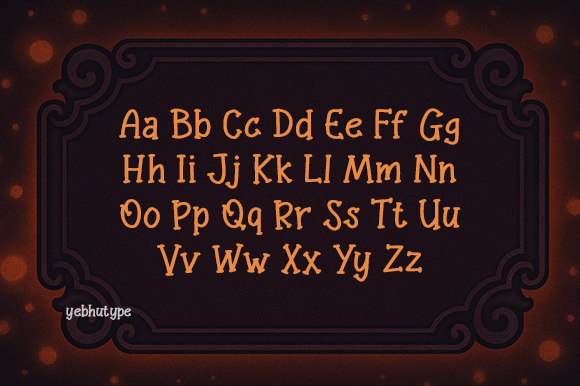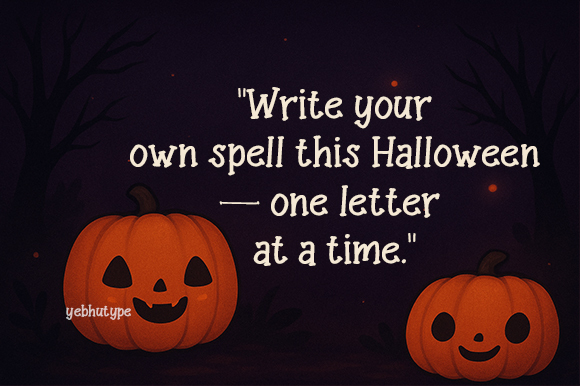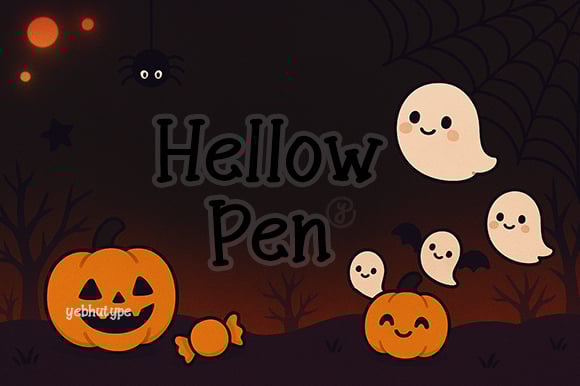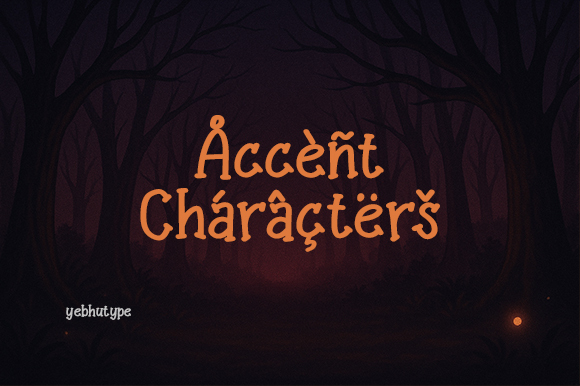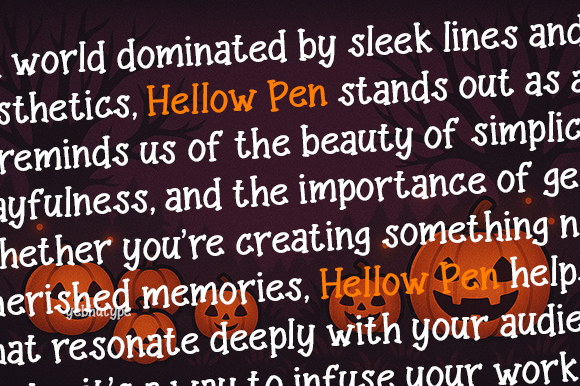
Hellow Pen Font: The Friendly Script That Brings Warmth and Personality to Every Letter
Introducing Hellow Pen , a delightful handwritten script font that captures the essence of warmth, friendliness, and natural charm. Lovingly crafted to evoke feelings of approachability and connection, Hellow Pen is more than just a font—it’s a celebration of all things personal, inviting, and heartfelt. With its soft curves, flowing strokes, and handcrafted details, this typeface brings a touch of authenticity and personality to every word. Whether you’re designing for branding, crafting social media graphics, or adding a personal touch to your creative projects, Hellow Pen effortlessly conveys charm and sincerity.
The Essence of Hellow Pen Font
Hellow Pen Font is inspired by the simple joys in life—handwritten notes passed between friends, the spontaneity of childhood scribbles, and the warmth of genuine communication. Its design embodies a sense of natural ease and carefree fun, making it perfect for designs that want to feel approachable, friendly, and full of heart. Like receiving a handwritten letter from a loved one, Hellow Pen leaves a lasting impression of warmth and delight.
Key Features
• Natural Flow : Each character in Hellow Pen is designed with smooth, flowing strokes that mimic the organic movement of handwriting. This gives the font a lively, authentic feel that feels both modern and timeless.
• Playful Yet Professional : While Hellow Pen has a playful energy, it maintains a level of sophistication that makes it suitable for both casual and professional use. Its balanced proportions ensure readability without sacrificing personality.
• Handcrafted Details : Every glyph is meticulously crafted with slight irregularities to give it an organic, human touch. These subtle imperfections ensure your text feels alive and brimming with personality, just like a genuine handwritten note.
• Versatile Use Cases : From children’s books to branding, greeting cards to social media graphics, Hellow Pen adapts seamlessly to any project that calls for warmth and whimsy.
• Modern Yet Nostalgic : While Hellow Pen has a contemporary edge, it also carries whispers of nostalgia. It’s reminiscent of chalkboard doodles, storybook illustrations, and lazy afternoons spent daydreaming.
Mood & Personality
Hellow Pen Font is the typographic embodiment of happiness and connection. Imagine sitting down to write a heartfelt letter to a friend, or flipping through the pages of a cherished journal where every entry feels personal. That’s the energy Hellow Pen brings to your designs. It’s playful without being overwhelming, warm without being cloying, and modern without losing its nostalgic charm.
Ideal Use Cases
• Children’s Books & Storytelling : Bring stories to life with Hellow Pen’s cheerful and inviting style. Perfect for titles, chapter headers, or dialogue bubbles, it creates an immersive reading experience that captivates young readers (and the young at heart).
• Branding & Logos : Add a dash of personality to your brand with Hellow Pen. Whether you’re designing logos for small businesses, cafes, or lifestyle brands, this font adds a touch of authenticity and warmth that resonates with audiences.
• Greeting Cards & Invitations : Celebrate birthdays, baby showers, holidays, or everyday moments with Hellow Pen’s playful flair. It adds a personal, heartfelt touch to every occasion, making your messages feel truly special.
• Social Media Graphics : Elevate your digital content with Hellow Pen’s eye-catching charm. Whether it’s Instagram posts, TikTok overlays, or Pinterest pins, this font keeps your audience engaged and smiling.
• Personal Projects : Transform your journals, scrapbooks, or DIY crafts into treasured keepsakes with Hellow Pen. Its friendly vibe turns even the simplest creations into something special, making every project feel unique and meaningful.
Why Choose Hellow Pen Font?
In a world dominated by sleek lines and minimalist aesthetics, Hellow Pen stands out as a breath of fresh air. It reminds us of the beauty of simplicity, the power of playfulness, and the importance of genuine connection. Whether you’re creating something new or reviving cherished memories, Hellow Pen helps you craft designs that resonate deeply with your audience. It’s not just a font—it’s a way to infuse your work with warmth and soul.
Let Your Designs Feel Personal and Authentic
With Hellow Pen Font, every word becomes a conversation, every sentence a moment of connection, and every design a reflection of your personality. Let its friendly curves and charming personality inspire you to create work that truly connects with hearts.
And let your designs serve up a slice of warmth and wonder. Because sometimes, the best connections come from the most personal touches—and Hellow Pen Font is here to help you deliver them beautifully. 💌✨
P.S.: Warmth never looked so good. With Hellow Pen, every project becomes a love letter to creativity—and a bridge to smiles.